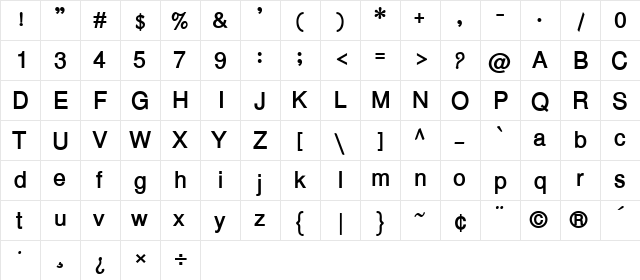
Amar Bangla Bold
| Foundry | Al Mamun Sumon |
| Designer | Al Mamun Sumon |
Design Context for Amar Bangla Typeface
Amar Bangla takes a measured approach to typography — its balanced proportions and neutral character make it a reliable workhorse for both digital and print work. The heavy weight commands attention and anchors typographic hierarchies.